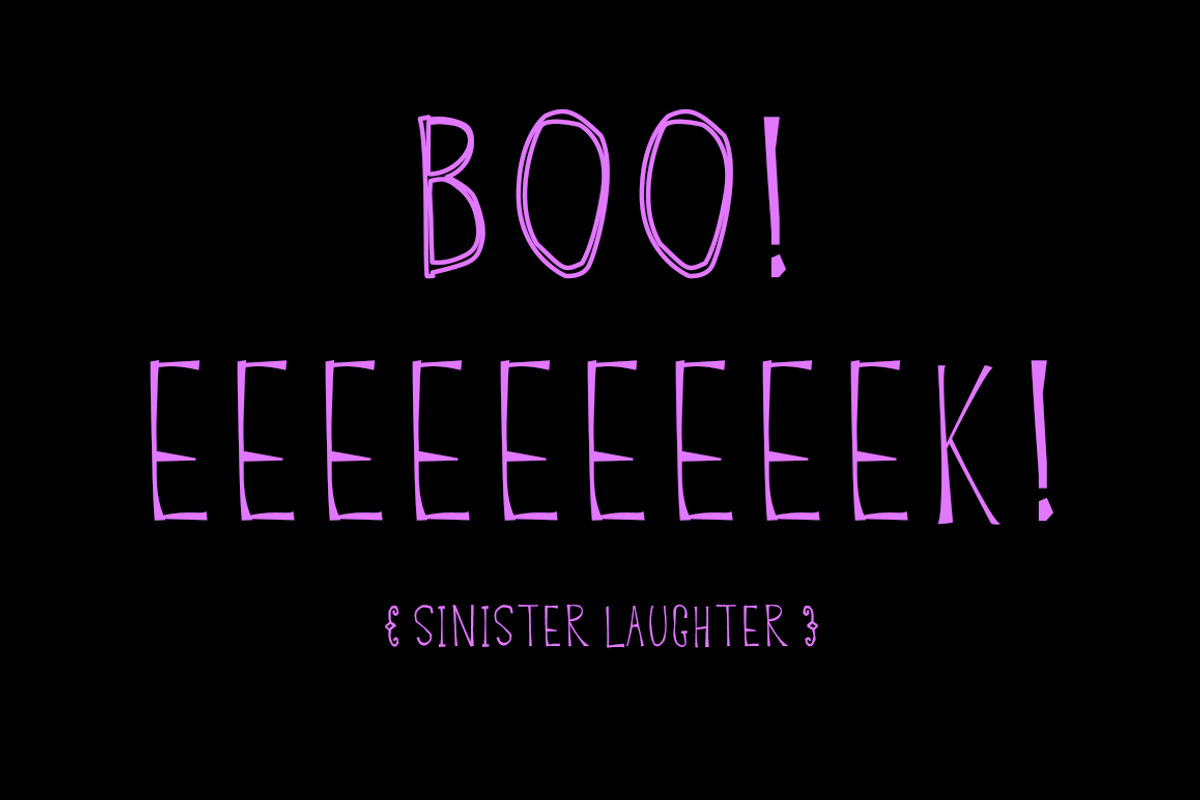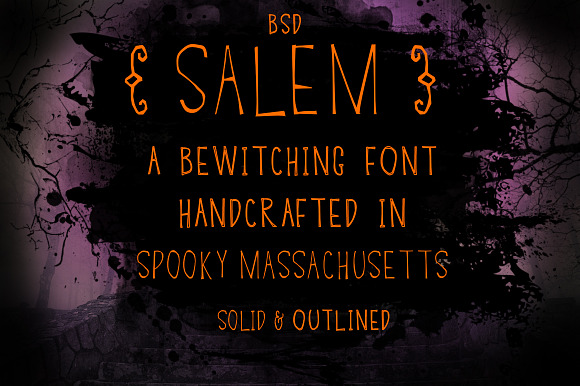
BSD Salem Font
So spooky! Caps are outlined characters Whimsical with a little autumn in Massachusetts magic :)
Why BSD Salem Font is worth a look
BSD Salem Font by Blue Sky Design fits naturally into Branding, posters, packaging, typography.